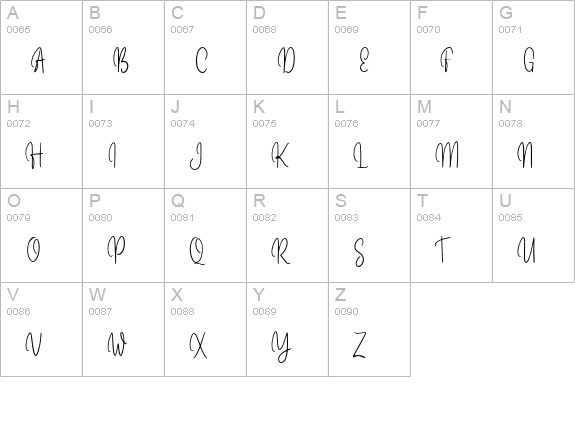
Dellatyna Font Details
Dellatyna is a demo font in the Script > Calligraphy category, designed by patria_typestudio. It has been downloaded 178 times and is available for Windows, Mac and Linux.
Dellatyna font is a modern and stylish typeface that exudes elegance and sophistication. Its sleek lines and unique shapes make it perfect for a wide range of design projects, from branding to packaging to advertising. The font offers a perfect balance between professionalism and creativity, making it a versatile choice for both digital and print applications.